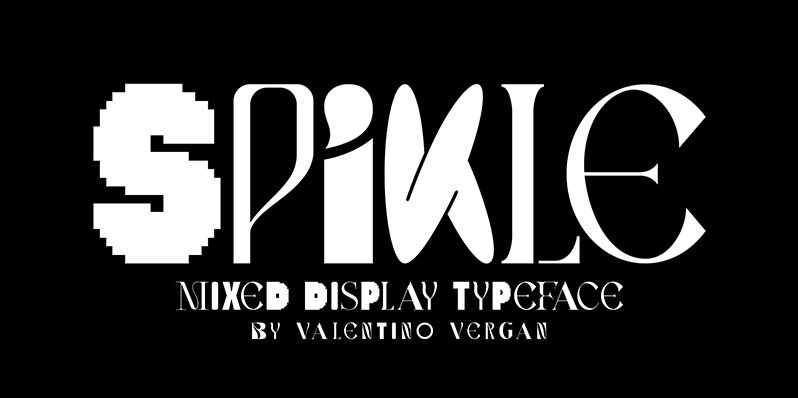
Spikle font by Valentino Vergan is a unique decorative display font. It combines eclectic uppercase letter styles to create a modernist and artistic appearance. With an experimental yet cohesive design, Spikle's avant-garde presence makes it an eye-catching choice to elevate any visual project.
This free display font thrives in creative projects, branding, logos, quotes, titles, and product packaging. It’s ideal for magazine covers, posters, social media visuals, websites, business cards, brochures as well as invitations where it can add a strikingly distinct touch.